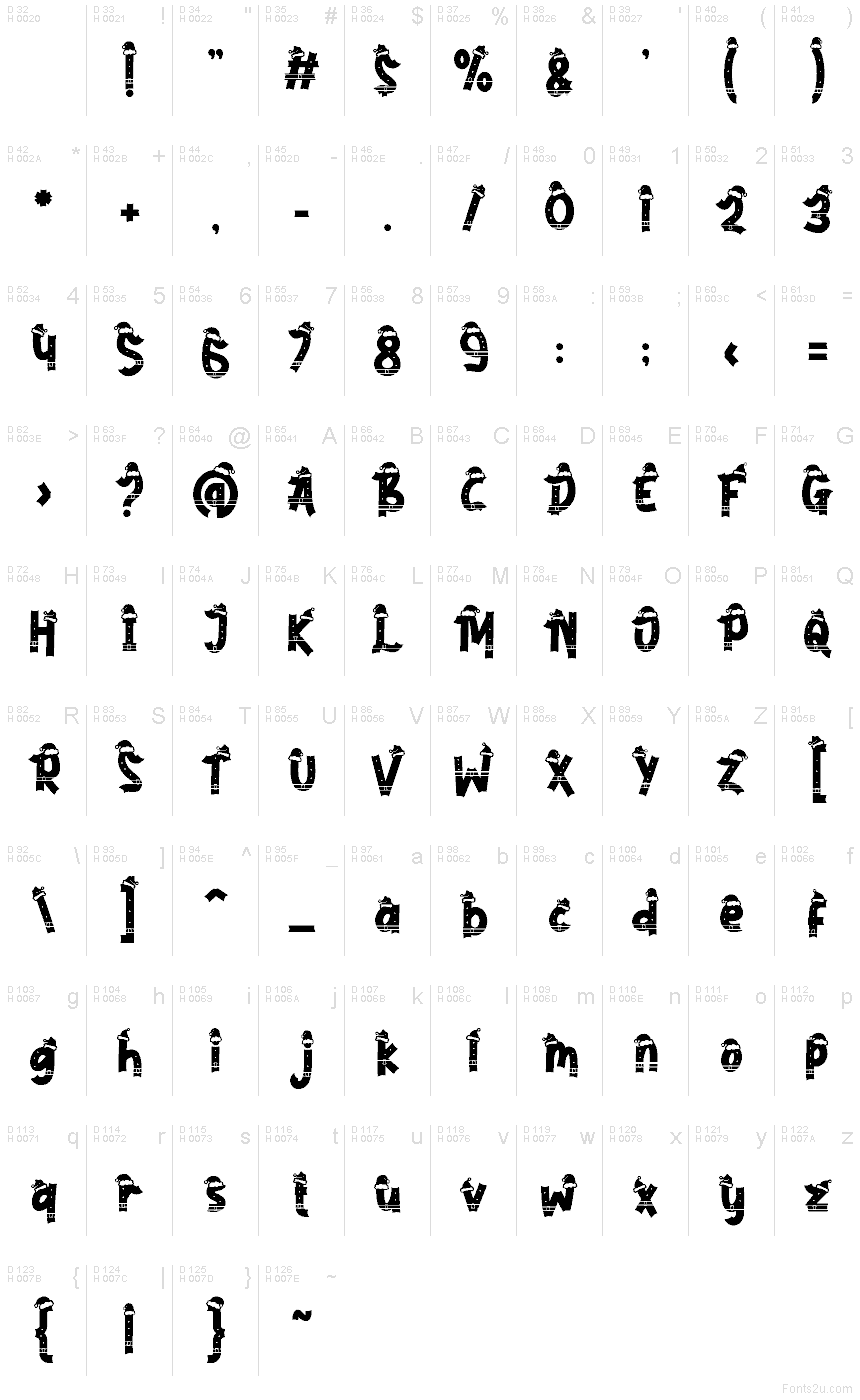
Modern Bauble Bliss Eight
Modern Bauble Bliss Eight font by PutraCetol Studio is a free christmas holiday typeface that feels like it’s been dipped in fresh snow and strung with lights. Chunky letterforms are topped with fluffy, melting “snow” and dotted with ornament-like shapes, giving every word the look of a cozy storefront window or a handmade card. The rhythm is bouncy and irregular in a charming way, so your text feels festive and hand-crafted rather than stiff or generic.
Using Modern Bauble Bliss Eight, you can instantly dress up Christmas party invitations, gift tags, greeting cards, kids’ crafts, T‑shirt designs, and seasonal social media graphics. This free font shines when used big and bold, where the snowy details and playful curves can really breathe. For readability, pair it with a clean, simple sans serif for body copy and let Modern Bauble Bliss carry the holiday headline magic.